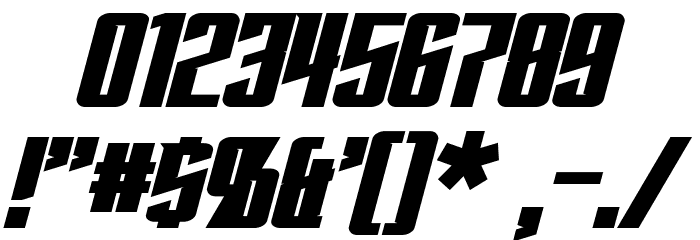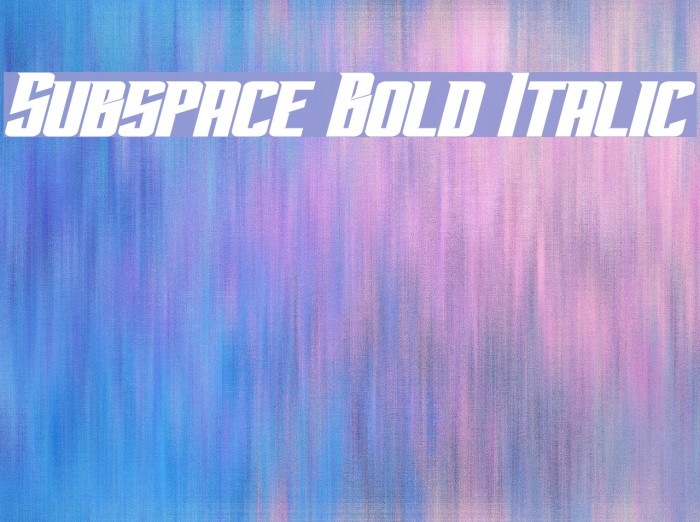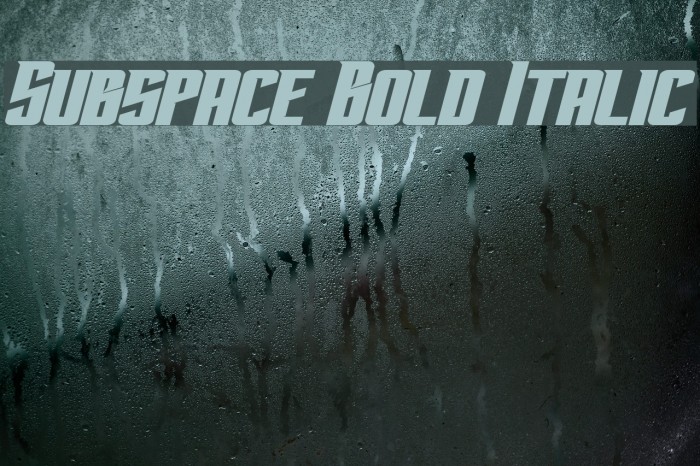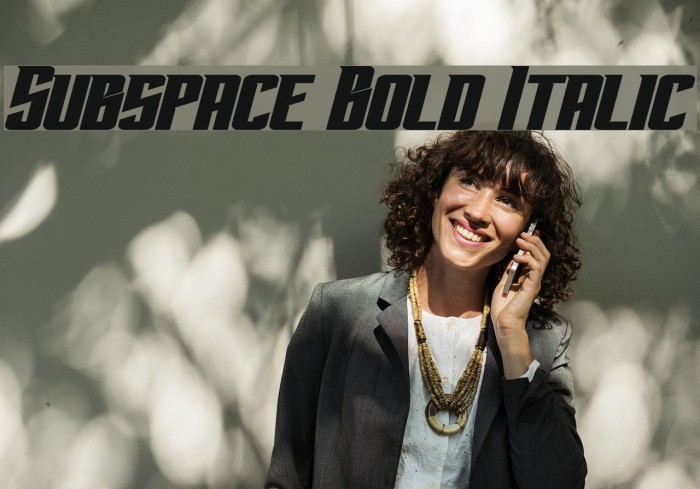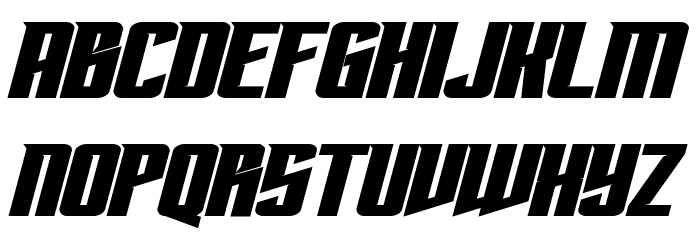
Subspace Bold Italic Font
Subspace Bold Italic Description
This font exhibits a bold and italicized style with a futuristic and dynamic appearance. The characters are sharply angled, giving them a sense of motion and energy. The uppercase and lowercase letters maintain a consistent slant, enhancing the italic effect. The numbers and special characters follow the same design principles, ensuring uniformity across the font. The strokes are thick, contributing to the boldness, while the sharp edges and geometric shapes add a modern touch. This font is visually striking and commands attention, making it suitable for impactful designs.
A bold, italicized font with a futuristic and dynamic style from Sci-fi fonts.
- Proposed Projects: Ideal for sci-fi themed posters, video game titles, sports branding, and dynamic logos.